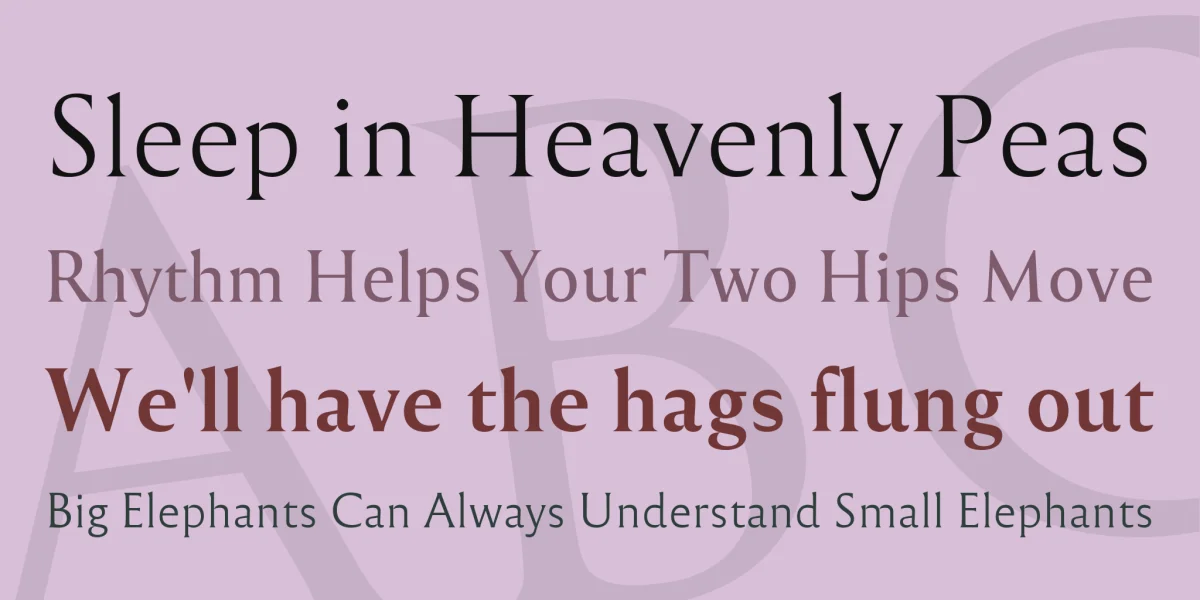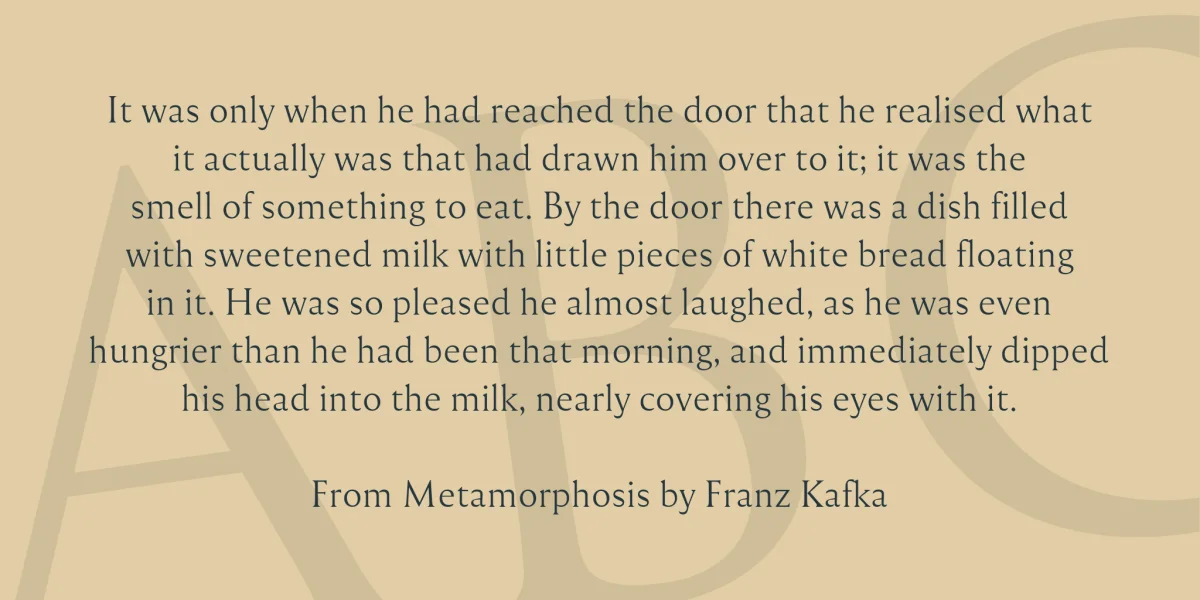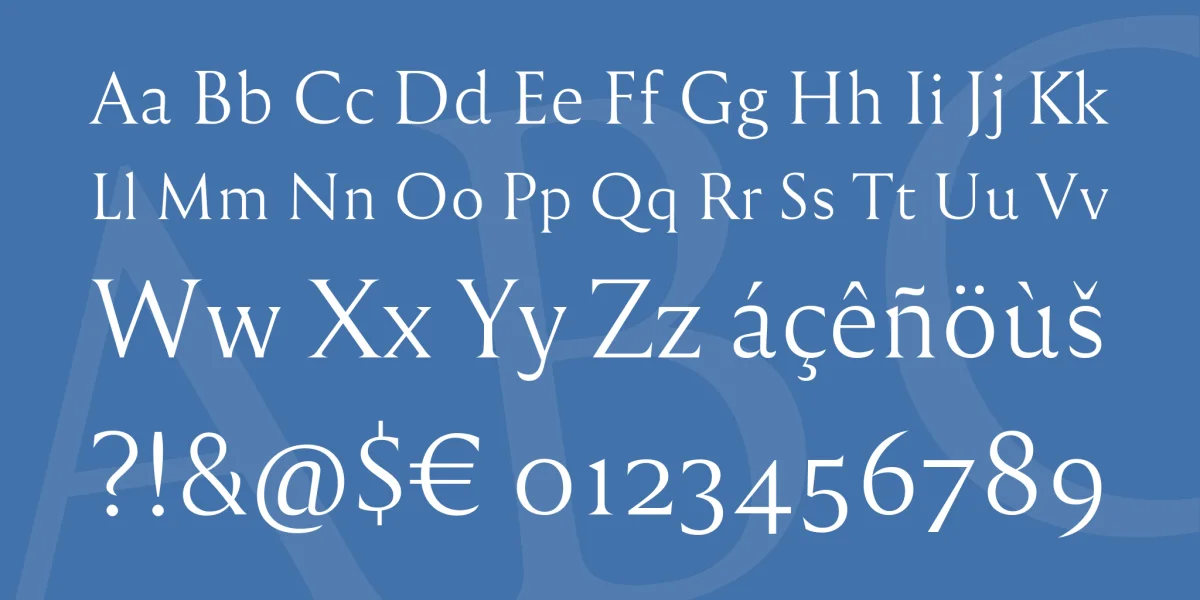
Reforma Font Family
Designed by PampaType
© Copyright 2017 by PampaType font foundry. Designed by Alejandro Lo CelsoReforma is a bespoke typeface design created for the Universidad Nacional de Córdoba, the earliest university in Argentina. The typeface was commissioned by the UNC as part of the celebrations for the centenary of the University Reform occurred in this house in 1918. Following Argentina’s national education policy, open and free, the typeface Reforma was made freely available in 2018.This Font Software is licensed under the Creative Commons BY-ND 4.0. This full license is available at: https://creativecommons.org/licenses/by-nd/4.0/
Reforma es una familia tipográfica a medida creada para la Universidad Nacional de Córdoba, la universidad más antigua de Argentina. La tipografía fue encargada por la UNC como parte de las celebraciones por el centenario de la Reforma Universitaria ocurrida en esa casa en 1918. Siguiendo la política nacional de educación pública en Argentina, abierta y gratuita, la tipografía Reforma se liberó para su uso público en 2018.Este software de fuente está licenciado bajo Creative Commons BY-ND 4.0. La licencia completa está disponible en: https://creativecommons.org/licenses/by-nd/4.0/